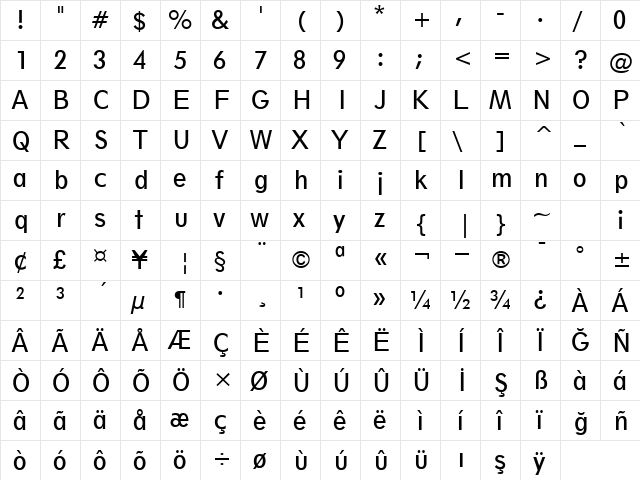
00289 Regular
Design Context for 00289 Typeface
00289 offers clean, dependable letterforms without strong stylistic allegiance, making it a practical choice for designers who need flexibility.